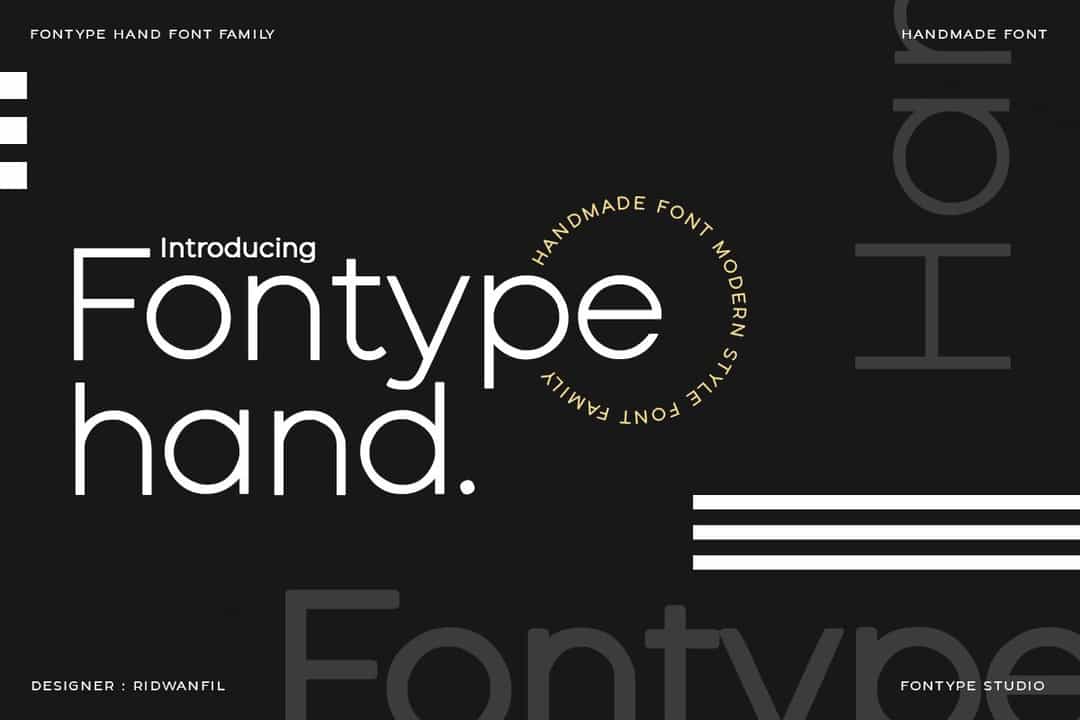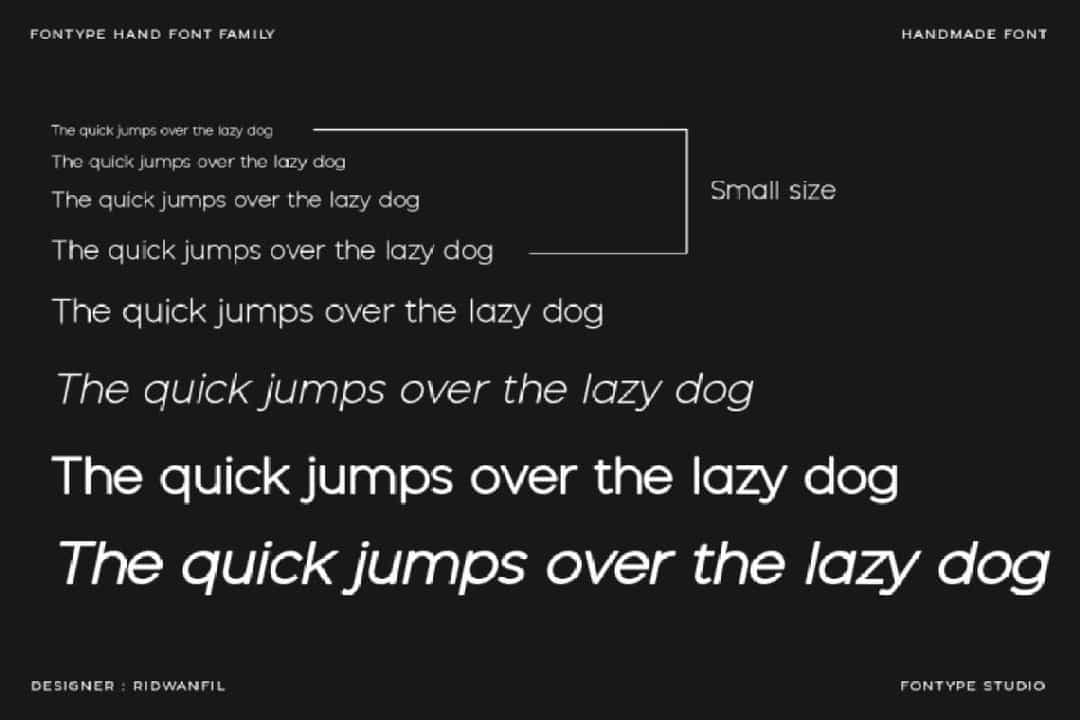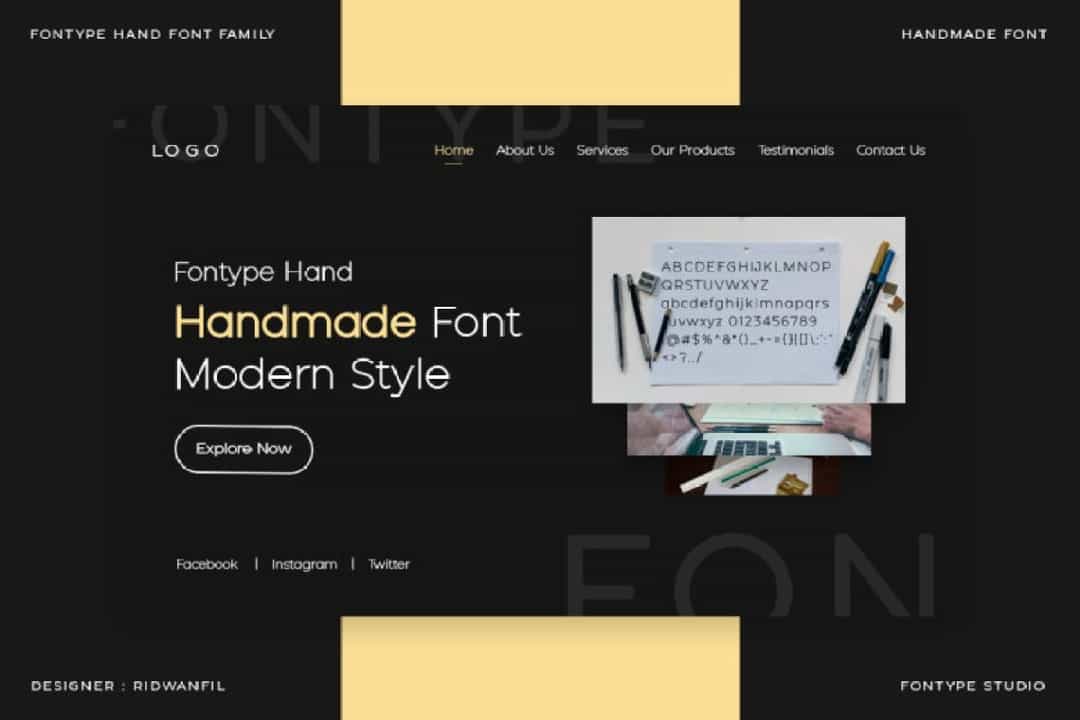
Fontype Hand is a modern Sans serif typeface with an approachable, relaxed style. This makes for a highly readable font which also works beautifully as part of busy backgrounds or as an eye-catching headline! Fontype Hand looks beautiful regardless of where it is used!